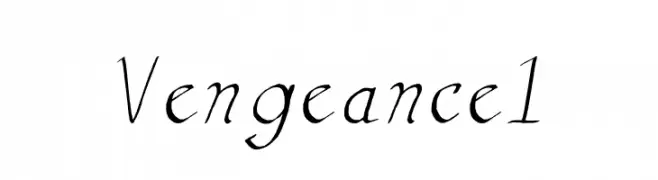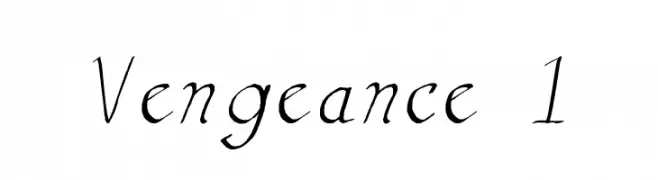
A playful, handwritten font with rounded, smooth letterforms.
An expressive, angular font with a dynamic and slightly slanted style.
A dynamic, cursive-like font with elegant, flowing strokes.